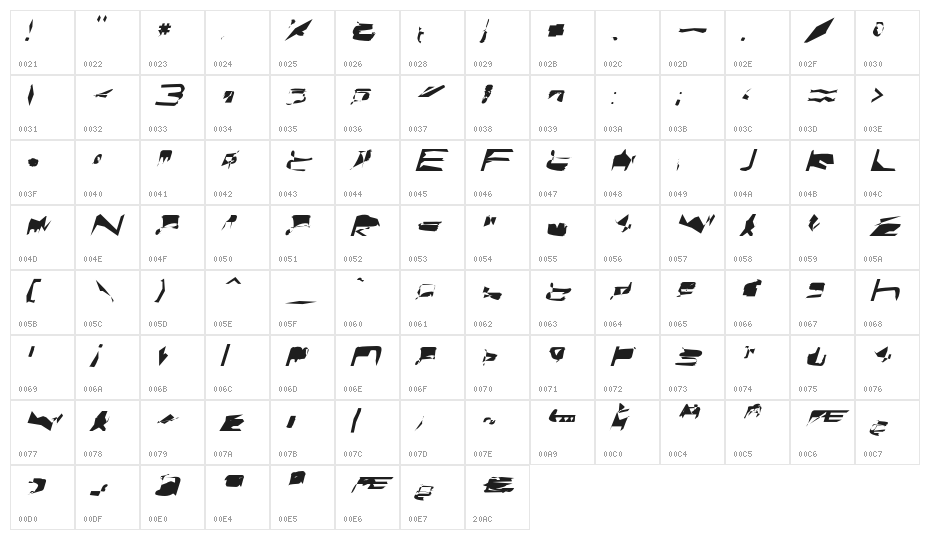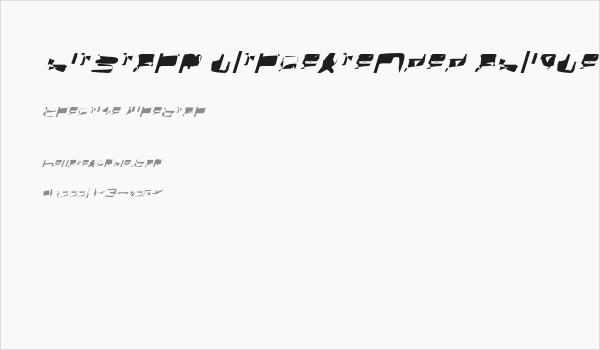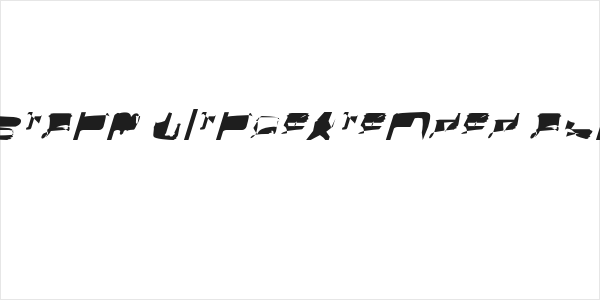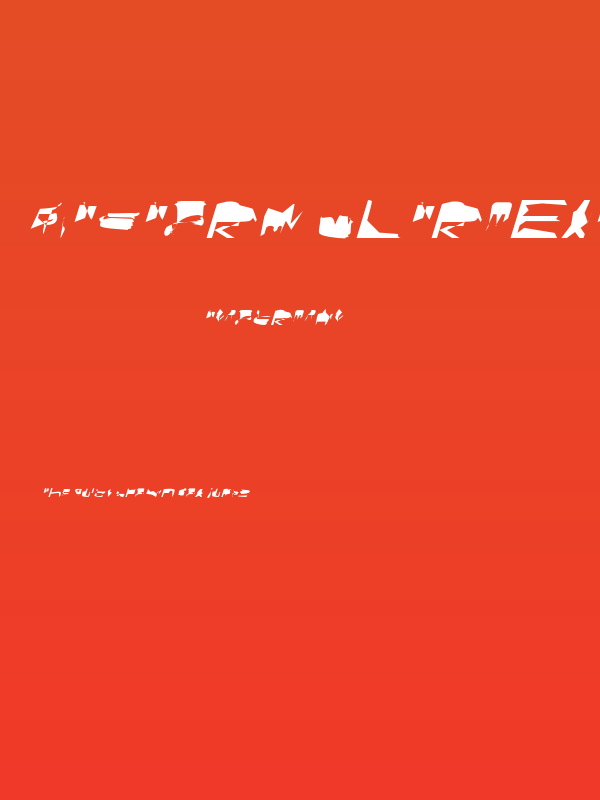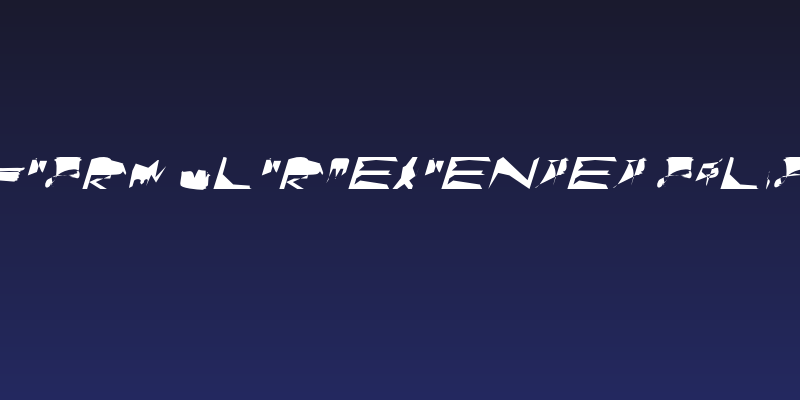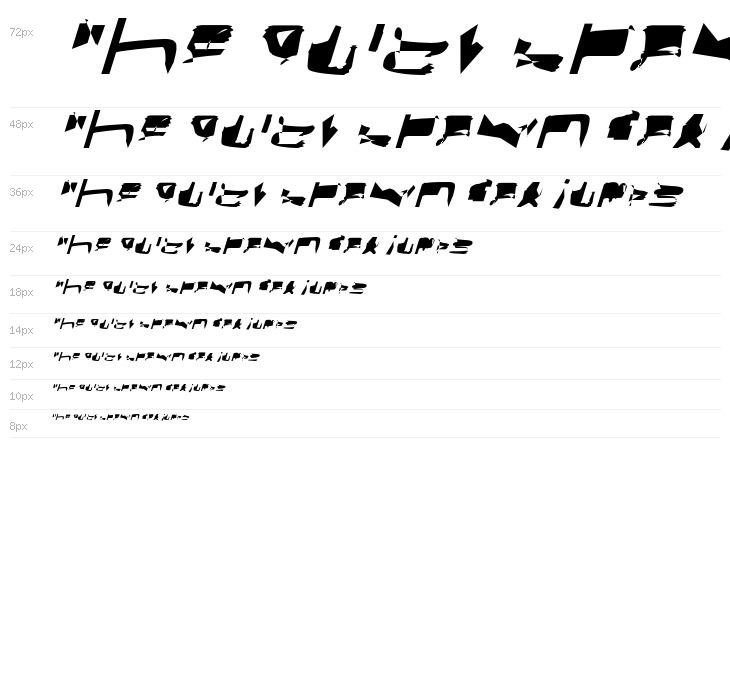
bitstorm ultraextended oblique Font
bitstorm ultraextended oblique Description
This font features a highly stylized, fragmented design with an oblique orientation, giving it a dynamic and futuristic appearance. The characters are heavily distorted with sharp angles and irregular shapes, creating a sense of movement and energy. The strokes are bold and thick, with varying levels of fragmentation that add a chaotic yet artistic flair. This font is not suited for readability in large blocks of text but excels in creating a striking visual impact.
| Overall Style | Futuristic, Dynamic |
| Proposed Projects | Ideal for sci-fi themed posters, album covers, video game titles, and any project requiring a bold, avant-garde aesthetic. |